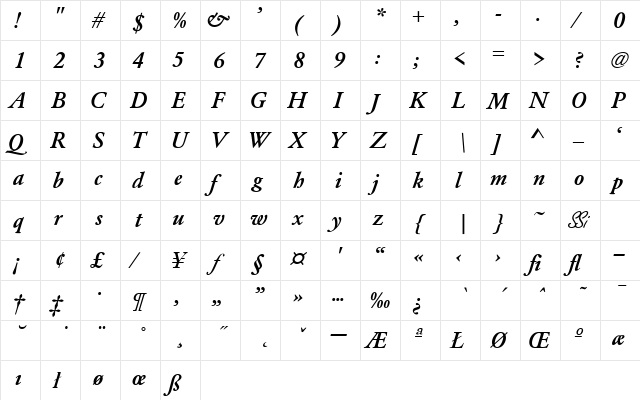
Garamond Light SSi Medium Italic Font Preview
Design Context for Garamond Light SSi Typeface
Garamond Light SSi takes a measured approach to typography — its balanced proportions and neutral character make it a reliable workhorse for both digital and print work. The slanted form adds forward momentum and visual energy. Its slender proportions lend an understated elegance to any composition.
Pro Tip: Try Garamond Light SSi for annotation and caption copy alongside an upright companion — the contrast in angle creates a dynamic but ordered typographic system.